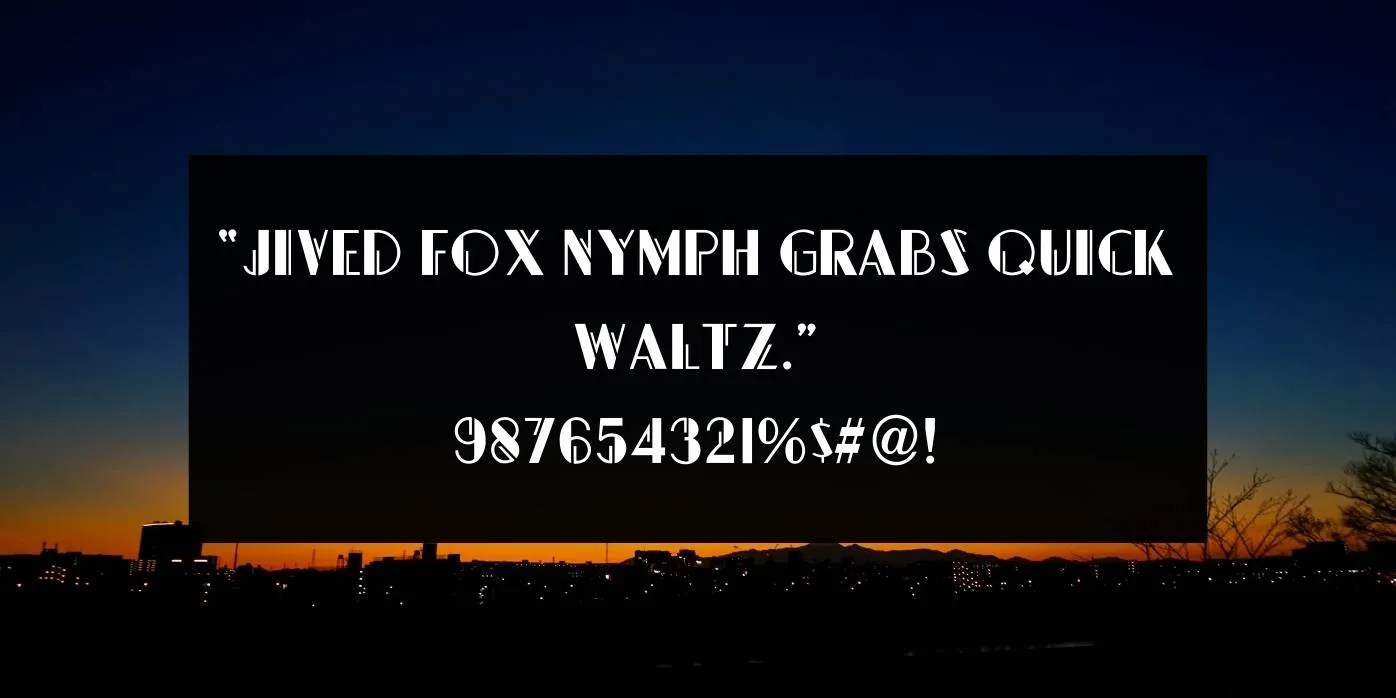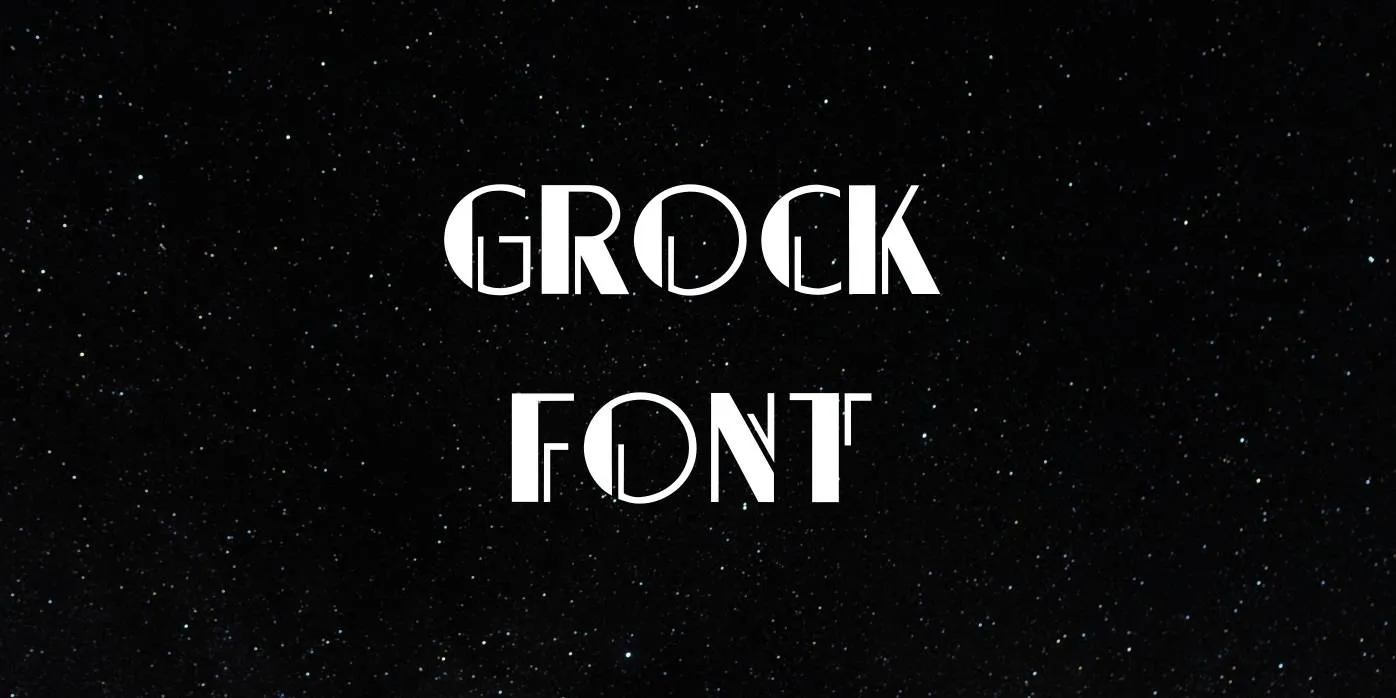
Grock Font
Grock Font is a fancy typeface that was designed by Bruno Maag and released through Dalton Maag Ltd in 2013. The family includes 12 styles, from light to black, each with italics. This font is named after the German word for rock, which alludes to the strong and sturdy nature of the typeface. The typeface was designed to be used in a variety of contexts, from headlines and logotypes to body text.
Maag drew inspiration for Grock from both old-style and modernist typefaces. The typeface has a high x-height, wide counters, and shortened descenders, which give it a compact appearance. The italics are oblique rather than true italics, which helps to maintain the overall compactness of the typeface.